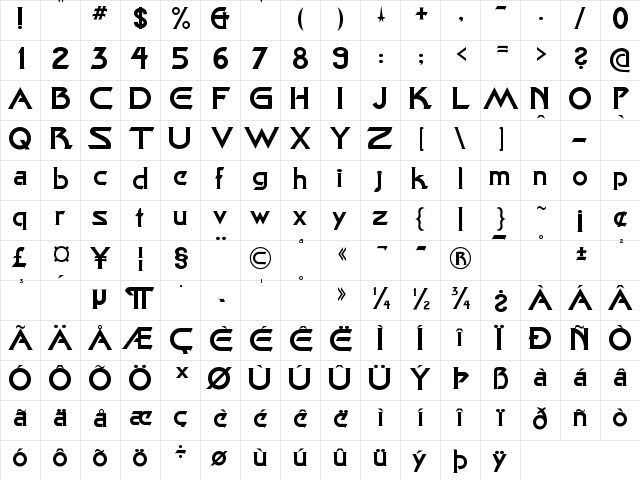
Star Cinema Regular Free Font
Star Cinema Regular
Design Context for Star Cinema
Star Cinema is a composed and adaptable typeface that performs quietly and consistently across a wide range of design contexts.